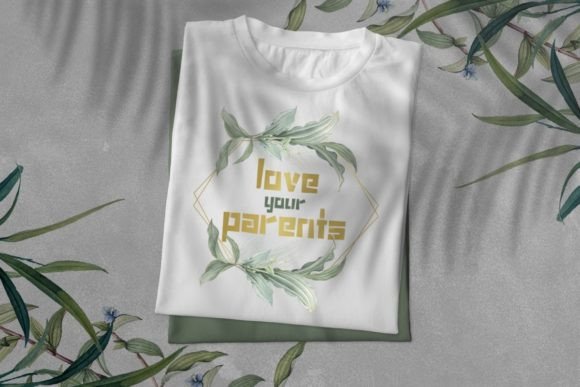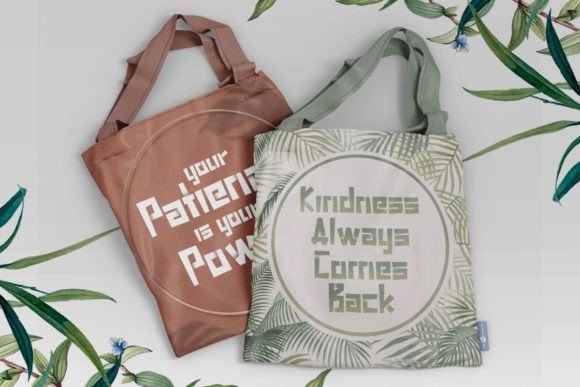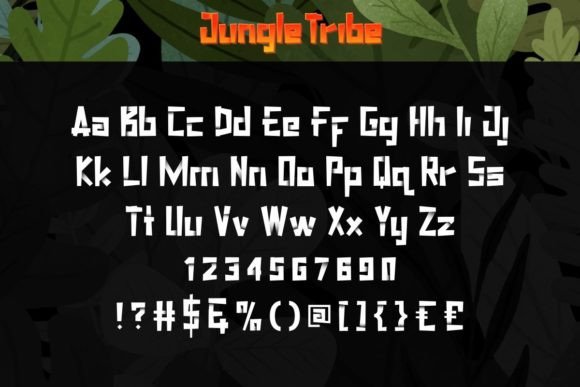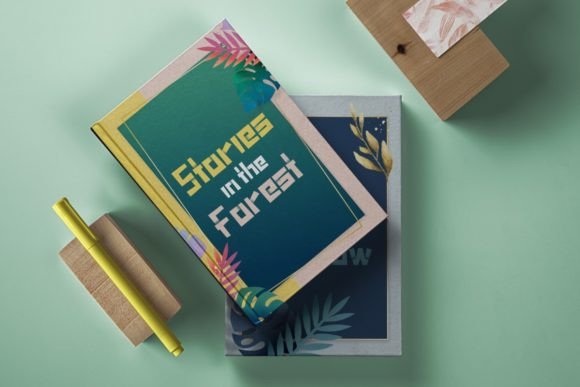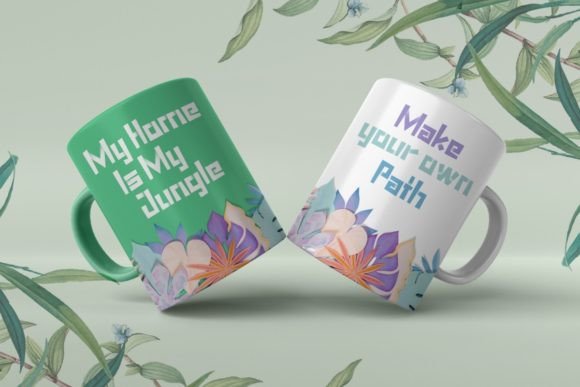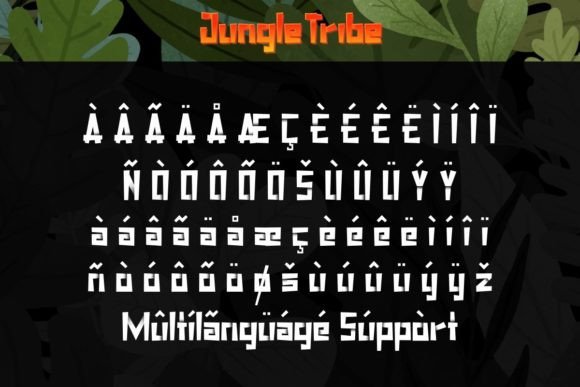
Introduction to Jungle Tribe Font
Jungle Tribe Font is a unique cartoon display font inspired by the zoo.
Textured is applied to the font as a special effect to give this font a more authentic, ethnic, and fun look Created especially for specific themes such as culture, childrenโs festivals, jungle, vacation, and many more.